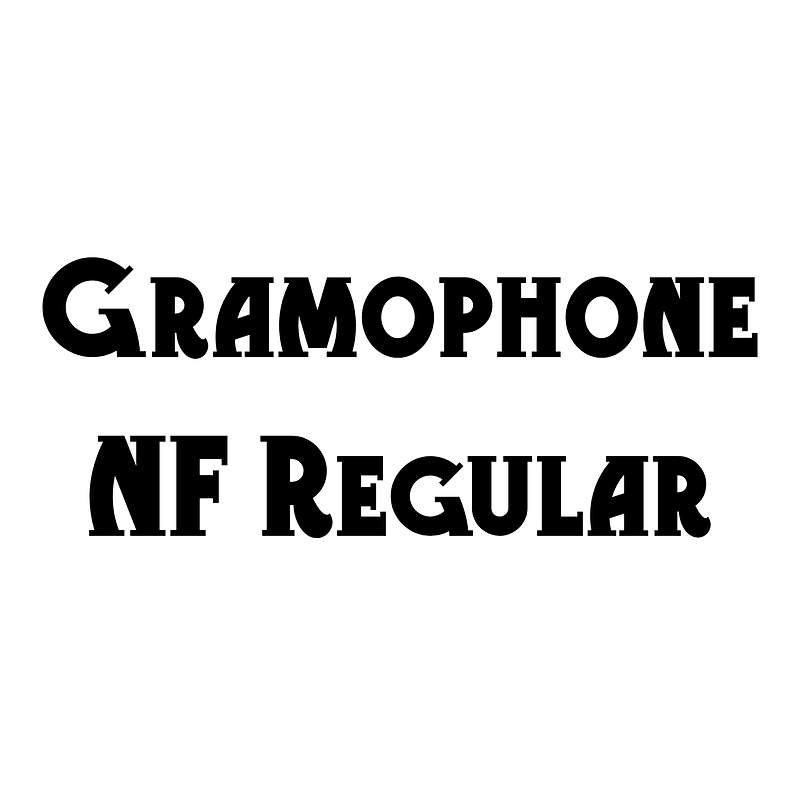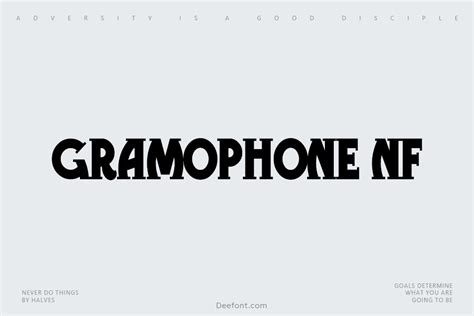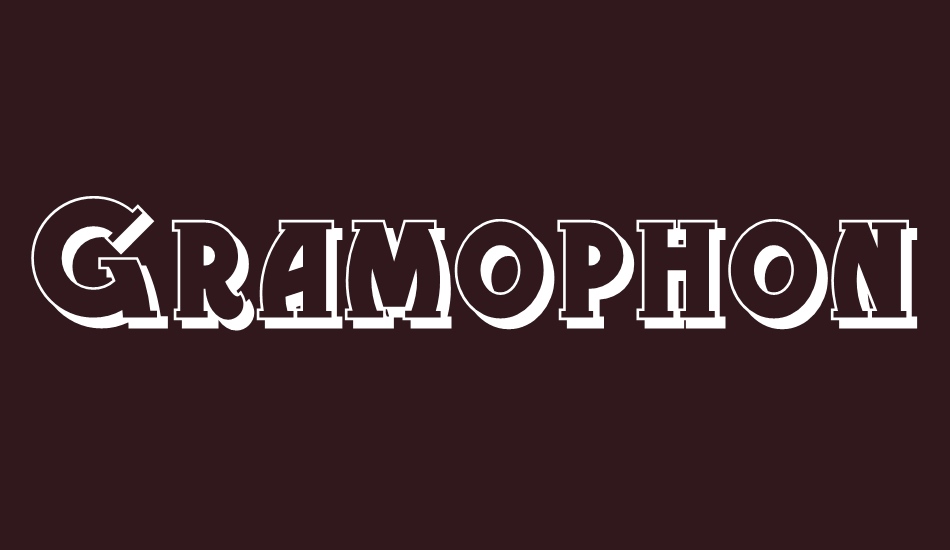
Gramophone Nf Font - View sample text, character map, user rating and review for gramophonenf regular Web download free gramophone nf font by nick's fonts. Web download gramophonenf regular for free. Web free download of gramophone nf font family with 3 styles. 68,660 downloads (2 yesterday) 100% free.
Gramophone Nf Font - View sample text, character map, user rating and review for gramophonenf regular Web download free gramophone nf font by nick's fonts. Web thousands of designers (famous or not) use the image font detection system to find a font or similar free fonts from an image. It is decorative font and has 1 style. Released in 2002 by nick's fonts and.
Gramophone Nf Font - Web download gramophonenf font free! 68,660 downloads (2 yesterday) 100% free. Web download free gramophone nf font by nick's fonts. Web download gramophone font family · free for commercial use · achille mauzan’s 1927 poster for the beverage carpano provided. Released in 2002 by nick's fonts and licensed for personal and commercial.
Gramophone Nf Font - Web download free gramophone nf font by nick's fonts. Gramophone nf à € by nick's fonts. Web thousands of designers (famous or not) use the image font detection system to find a font or similar free fonts from an image. 68,660 downloads (2 yesterday) 100% free. Web download gramophone font family · free for commercial use · achille mauzan’s 1927.